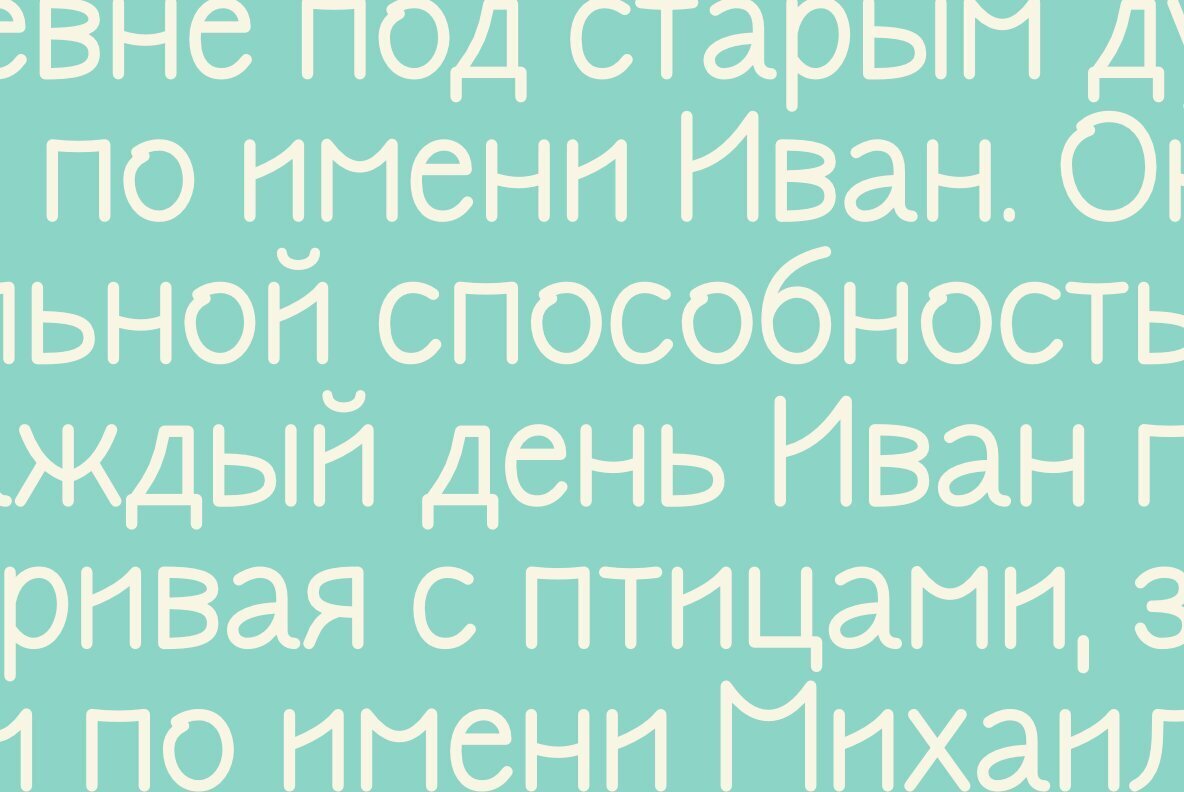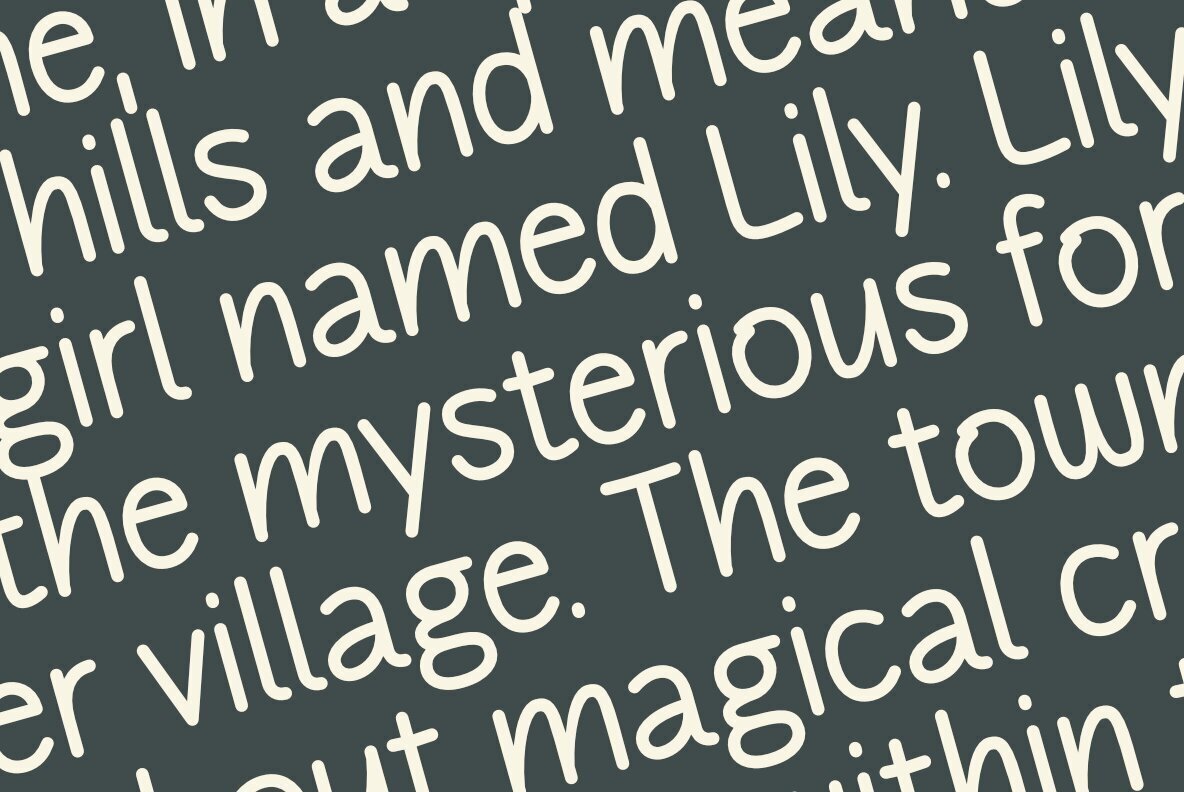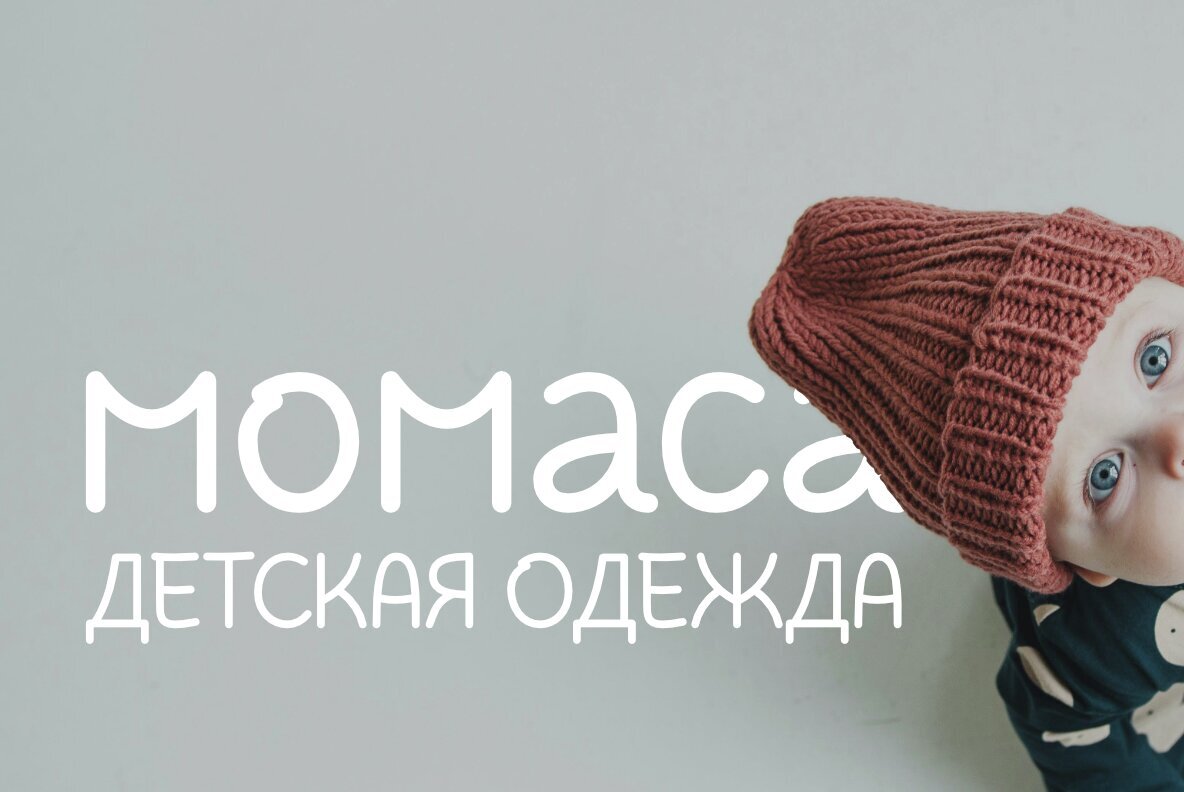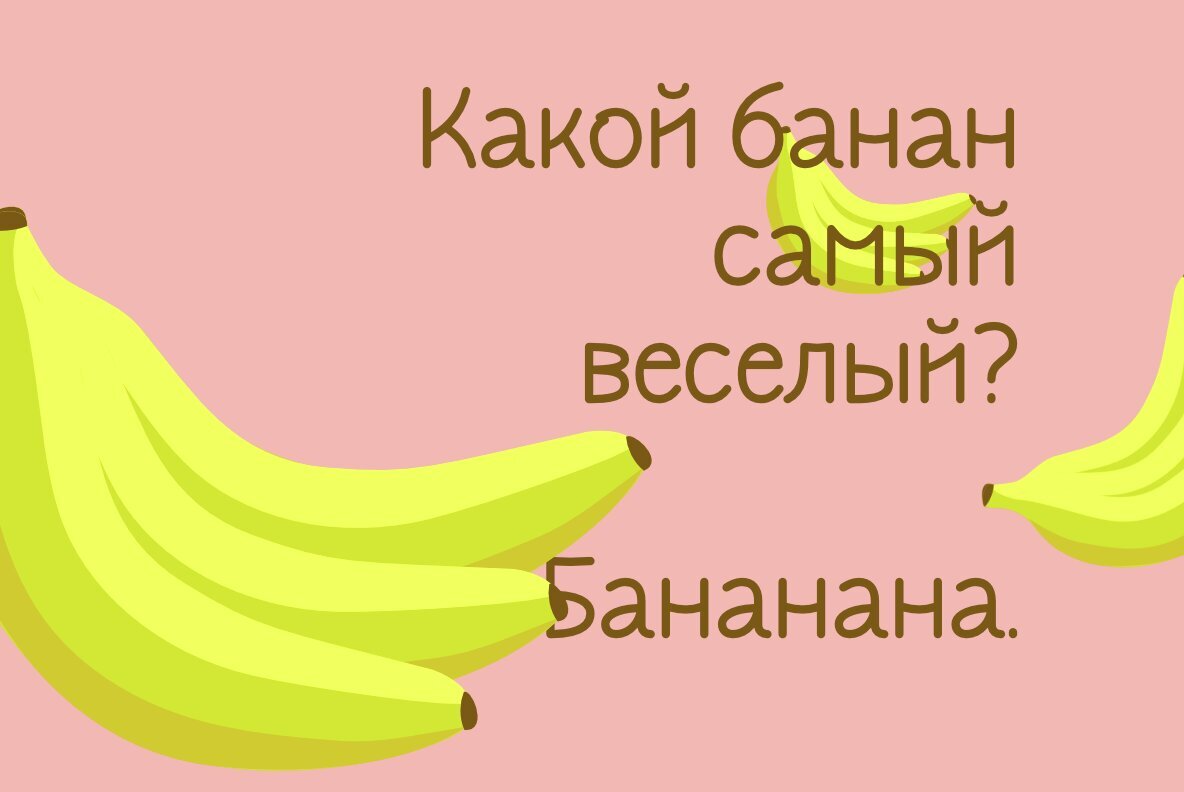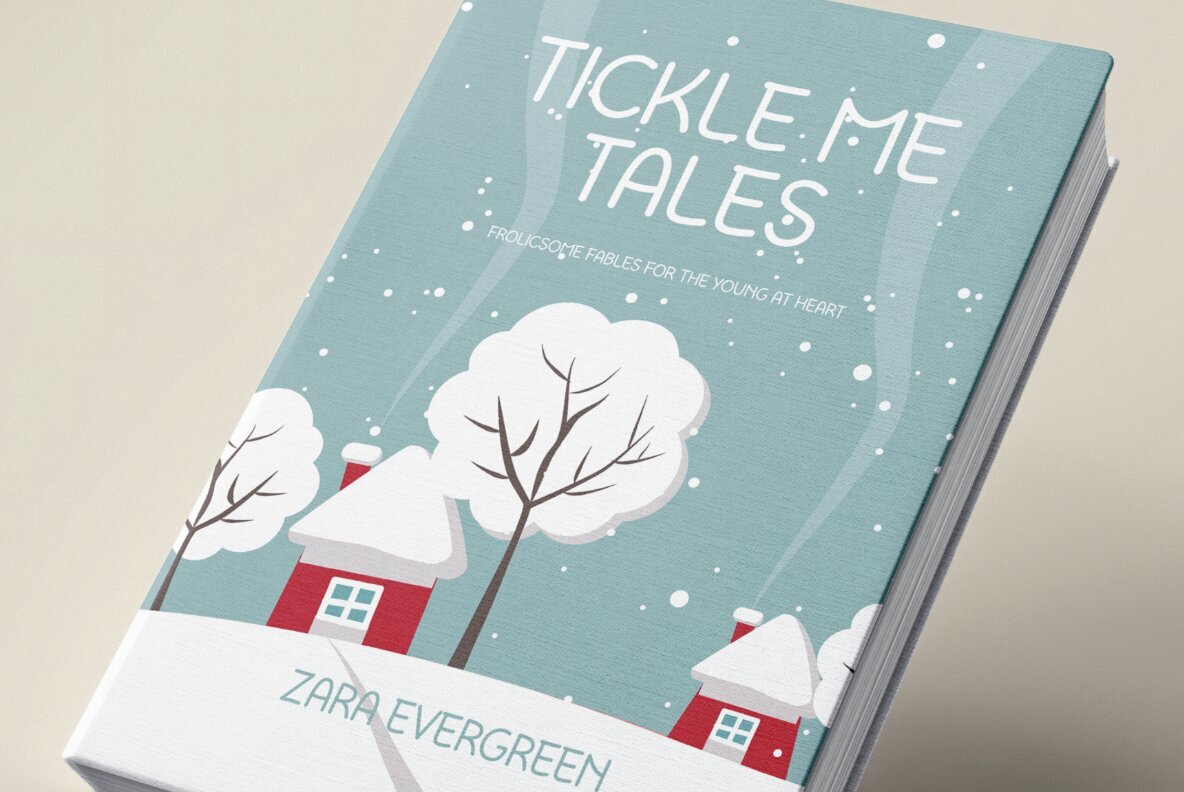
Baumata Font
Baumata Regular
Baumata is a delightful and playful sans serif font that effortlessly combines modern design with whimsical elements. It is designed to infuse personality and charm into your projects, making it a perfect choice for those seeking a friendly and captivating typeface. With its versatile nature, Baumata is crafted to engage audiences in both Latin and Cyrillic scripts.Baumata: Playful Sans Serif Blending Modern Aesthetics